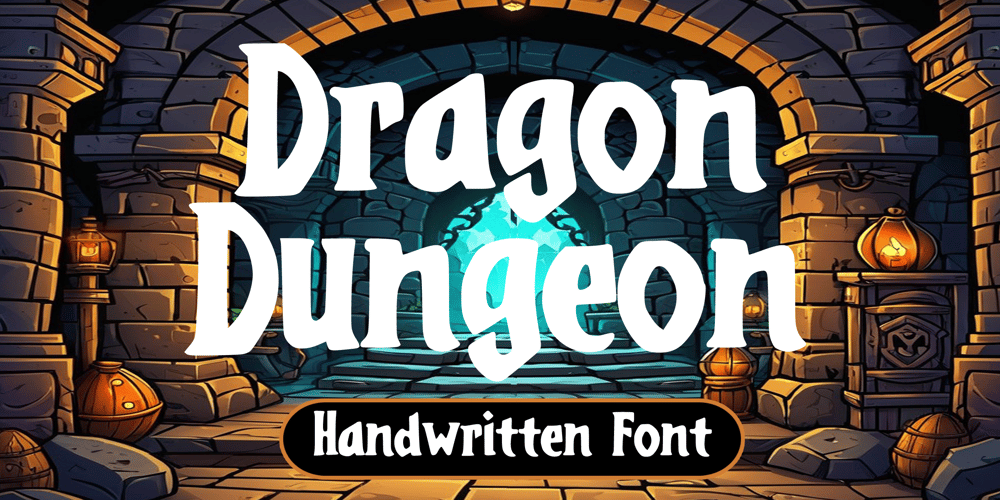
Dragon Dungeon
Dragon Dungeon font
Dragon Dungeon Font Family was designed by Gabriel Valentinus and published by Mvmet. Dragon Dungeon contains 1 styles and family package options. Dragon Dungeon is a fun and playful antique medieval-themed font, inspired by 90s tabletop games and fantasy cartoons. You can use it for anything ranging from t-shirts, kids’ book designs, game designs, and greeting cards to stickers and posters, or anything that needs a middle-ages vibe. Fall in love with its incredibly versatile style and use it to create lovely designs!